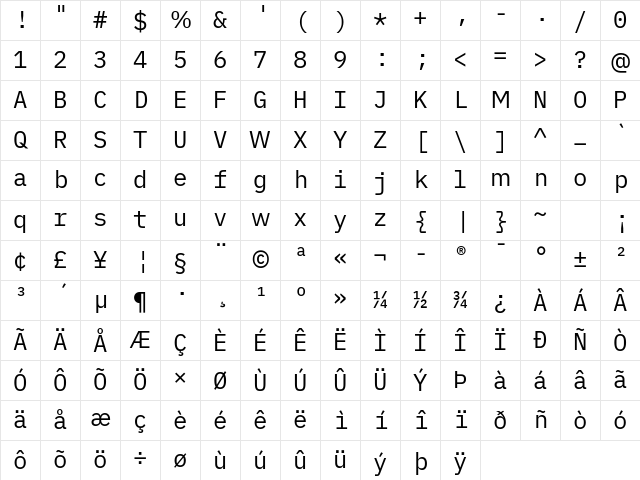
Complete iMWritingDuoS Nerd Font Regular glyph index. Displaying only characters natively supported by iMWritingDuoS Nerd Font Regular font.
iMWritingDuoS Nerd Font is a composed and adaptable typeface that performs quietly and consistently across a wide range of design contexts.